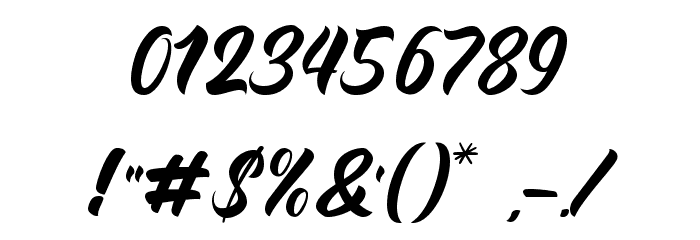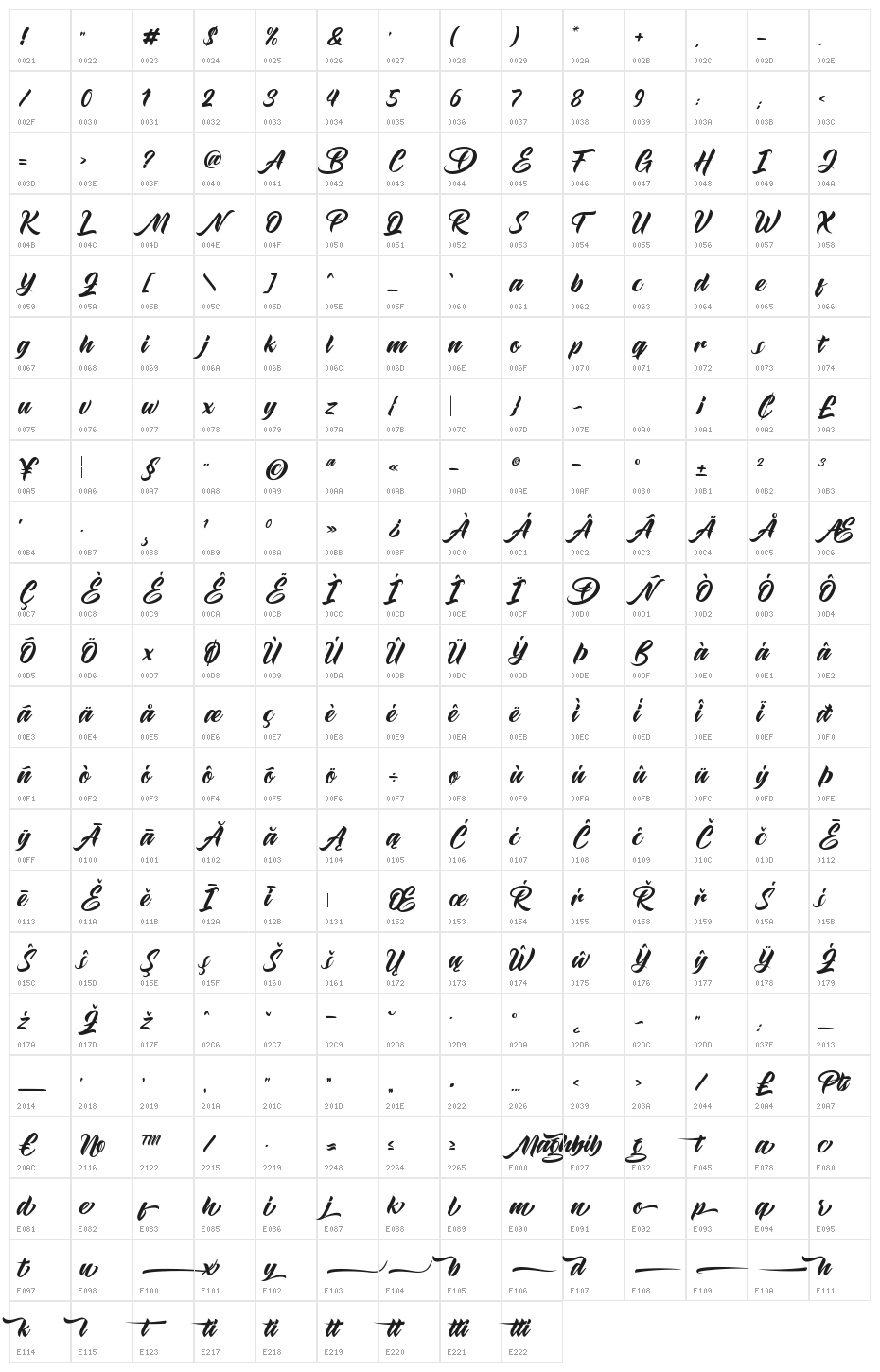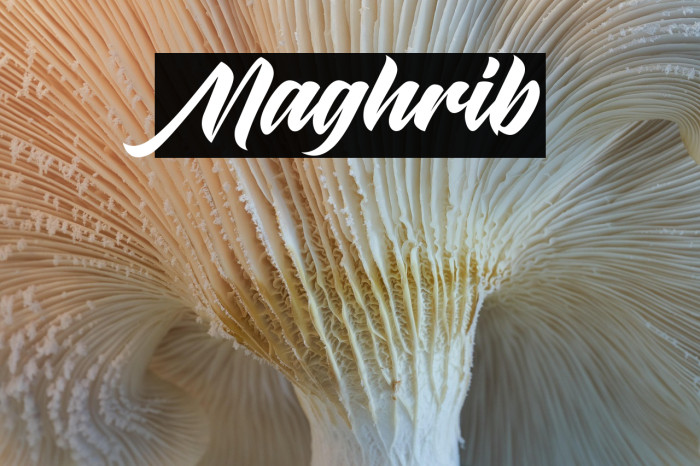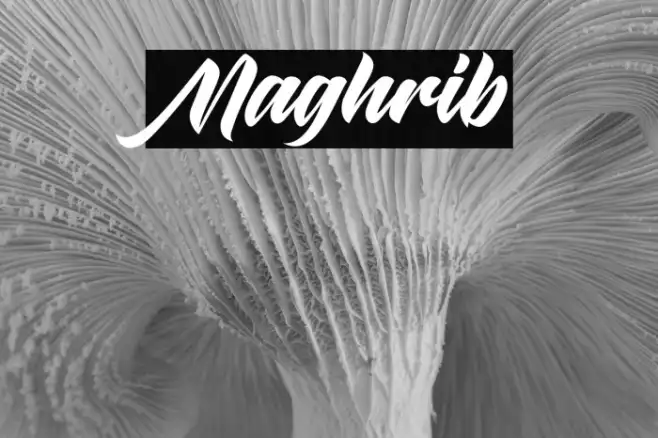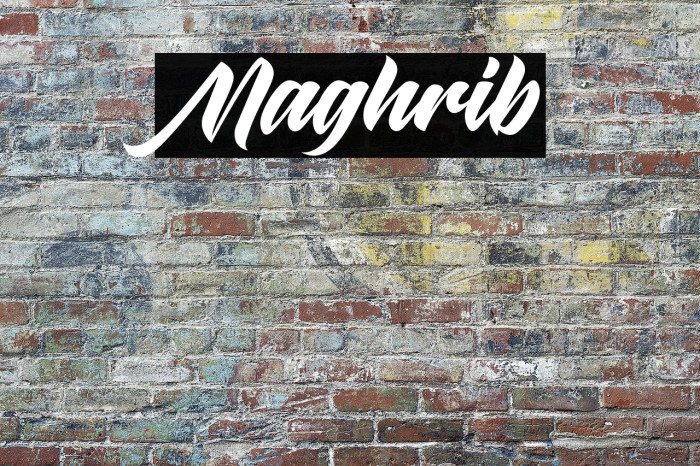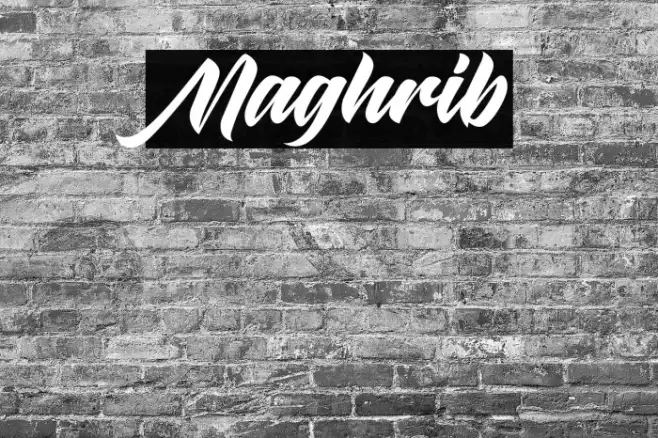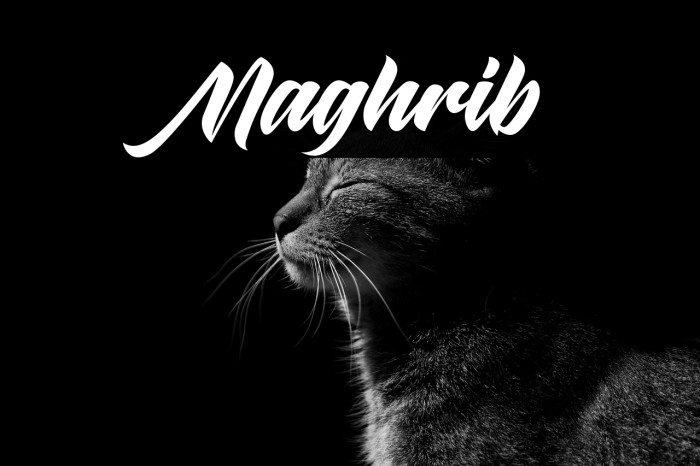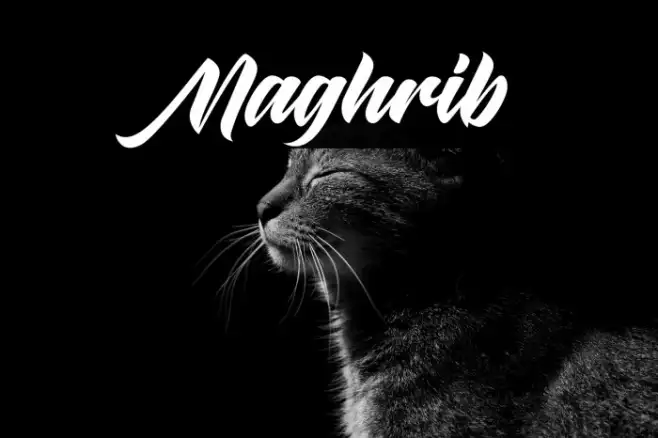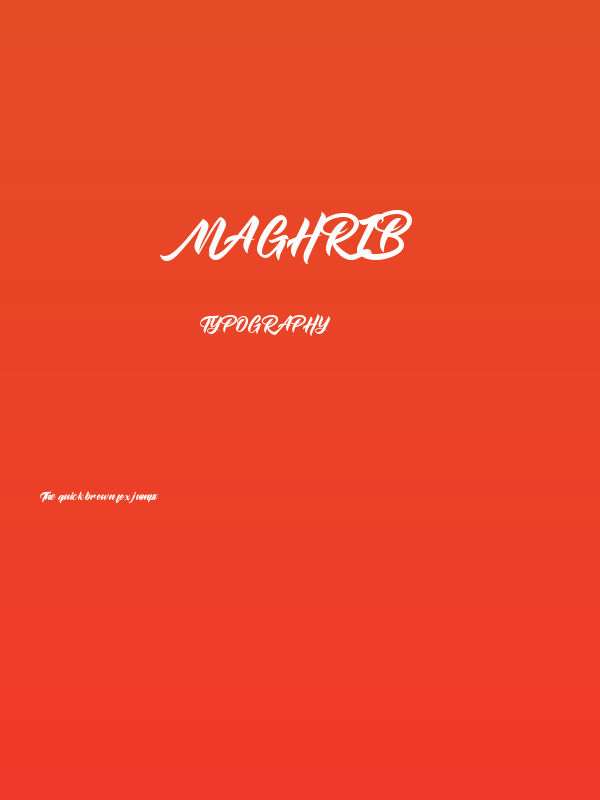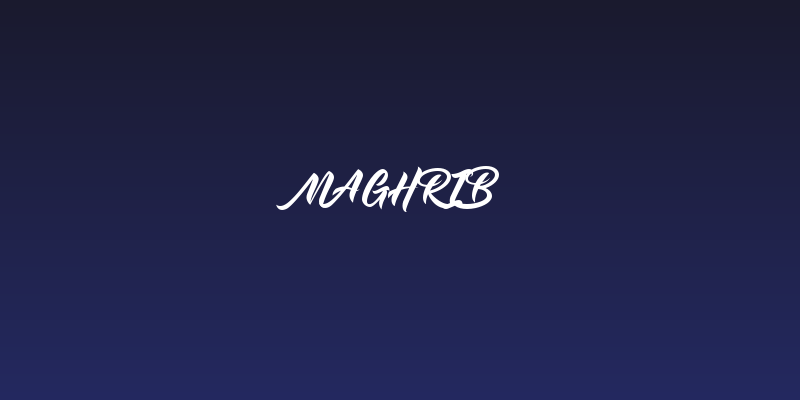
Maghrib Font
Maghrib Description
This font features a bold and expressive script style, characterized by its flowing, cursive letterforms. The strokes are thick and dynamic, giving the font a strong presence. Each character is crafted with a sense of movement, creating a lively and energetic appearance. The uppercase letters are particularly striking, with dramatic flourishes and a sense of elegance. The lowercase letters maintain the same fluidity, ensuring consistency throughout. Numbers and special characters are designed to match the overall aesthetic, making this font versatile for various uses.